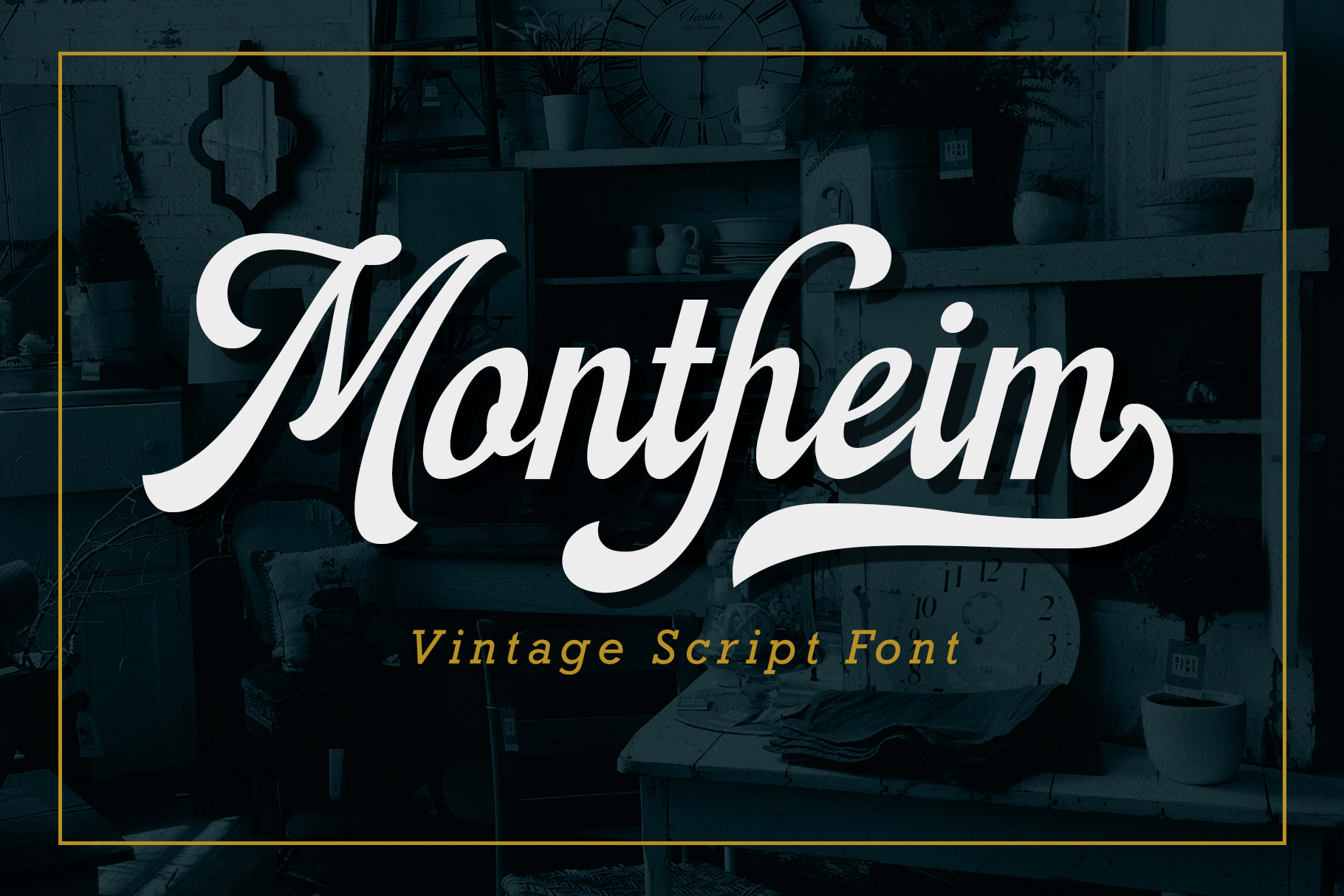
Montheim Font
About Montheim
Introducing Montheim, a vintage script font with medium weight. Inspired by modern retro movement and brush calligraphy. Montheim has many variations of alternates characters that you can mix and match, also with custom swashes (ligature) in the middle text and end swashes.